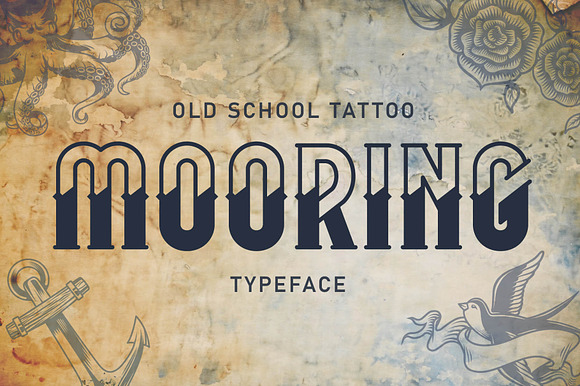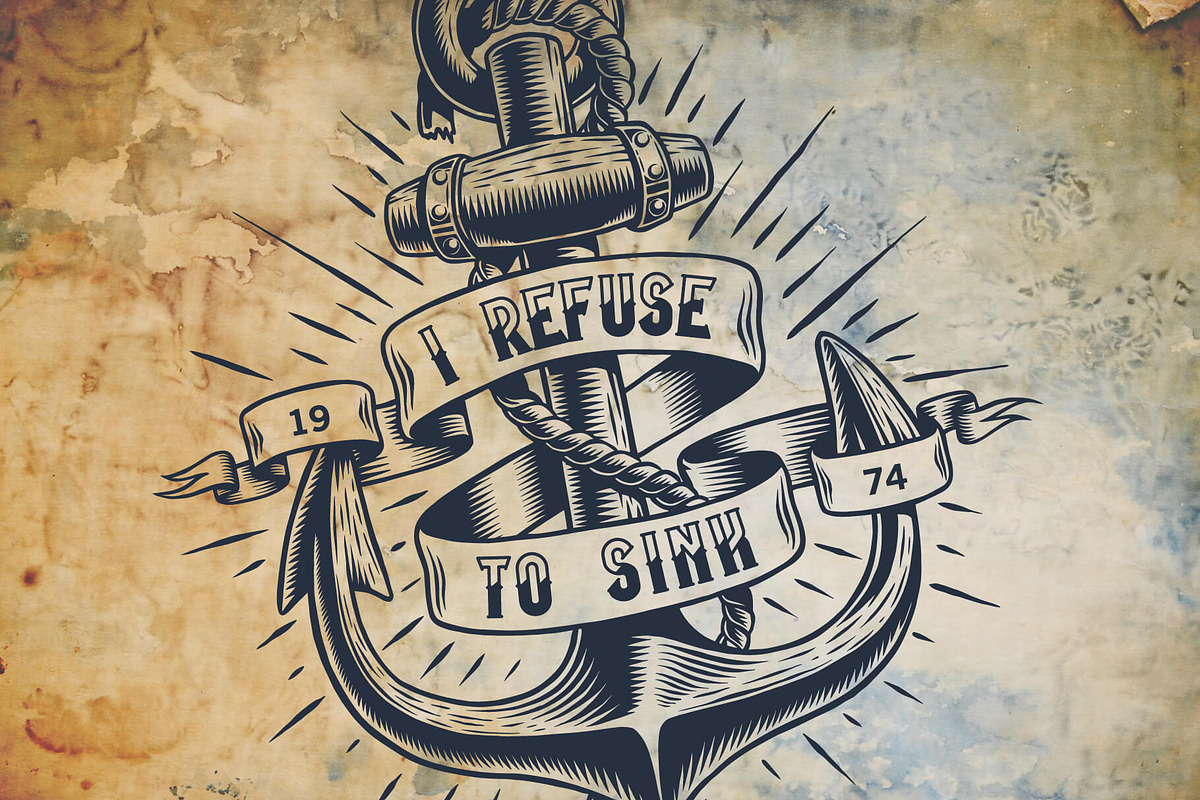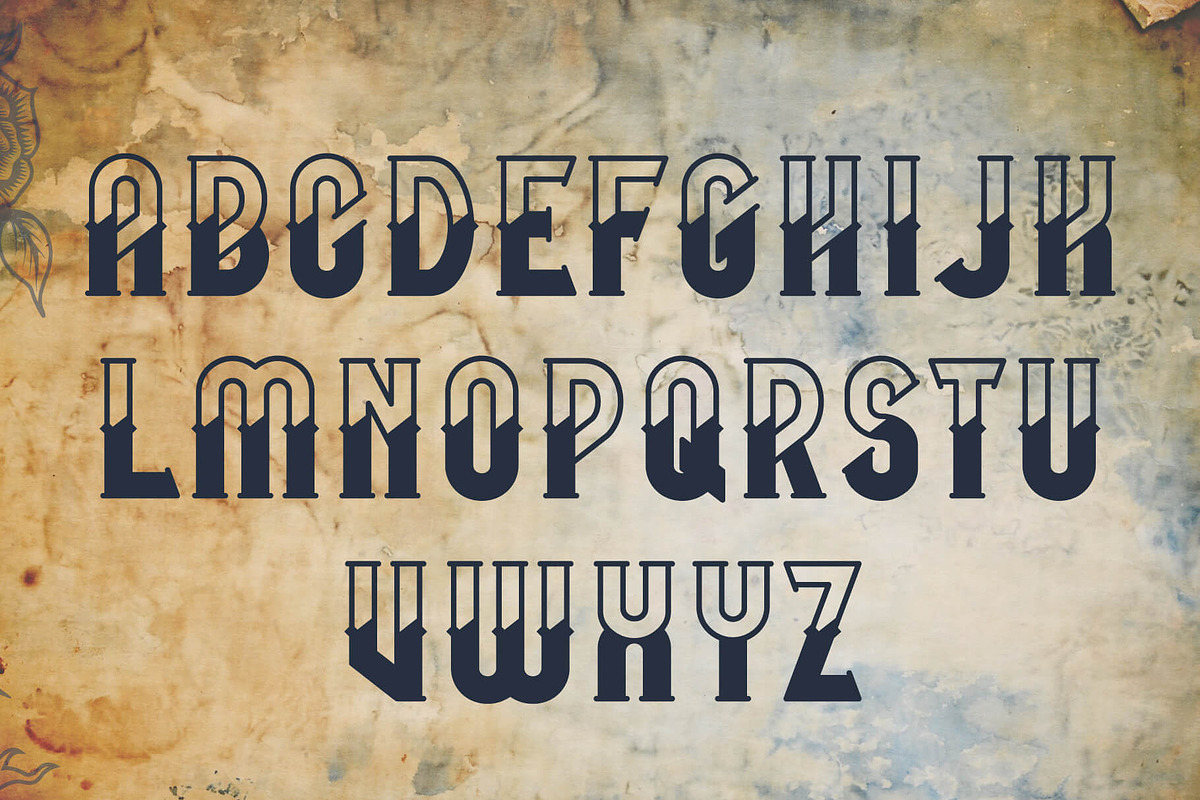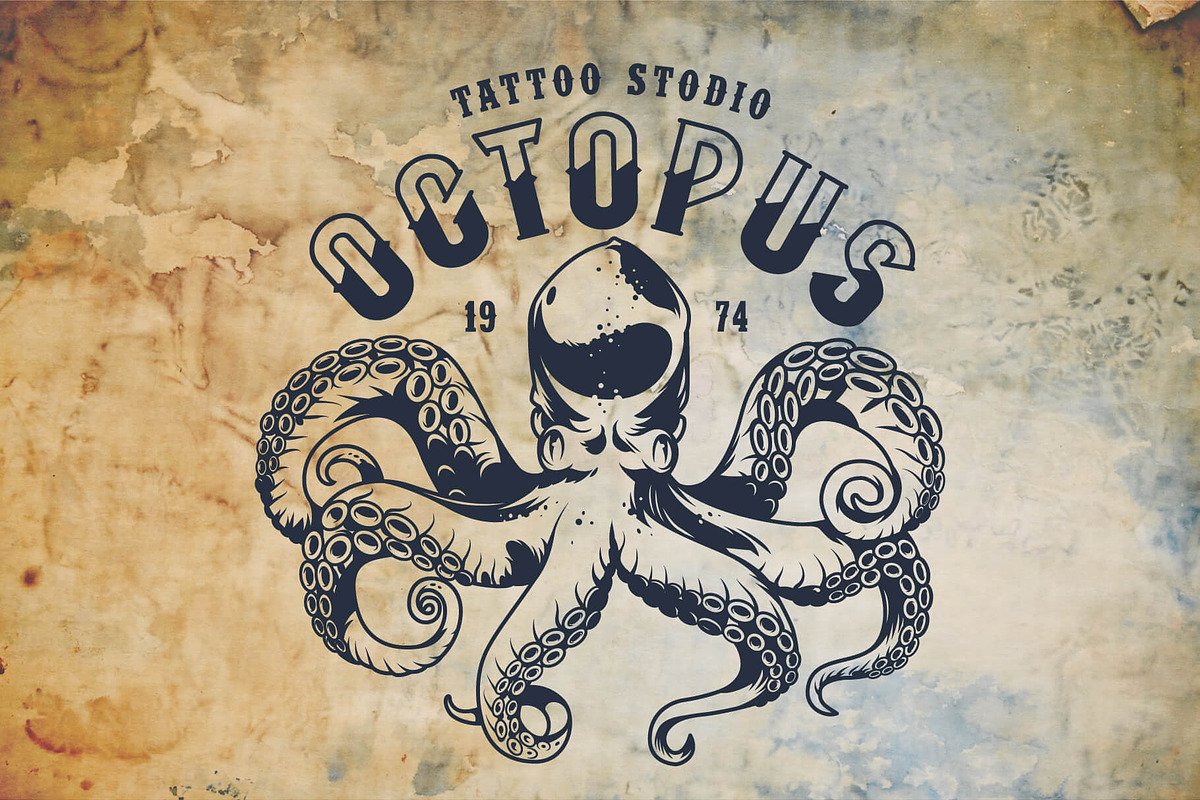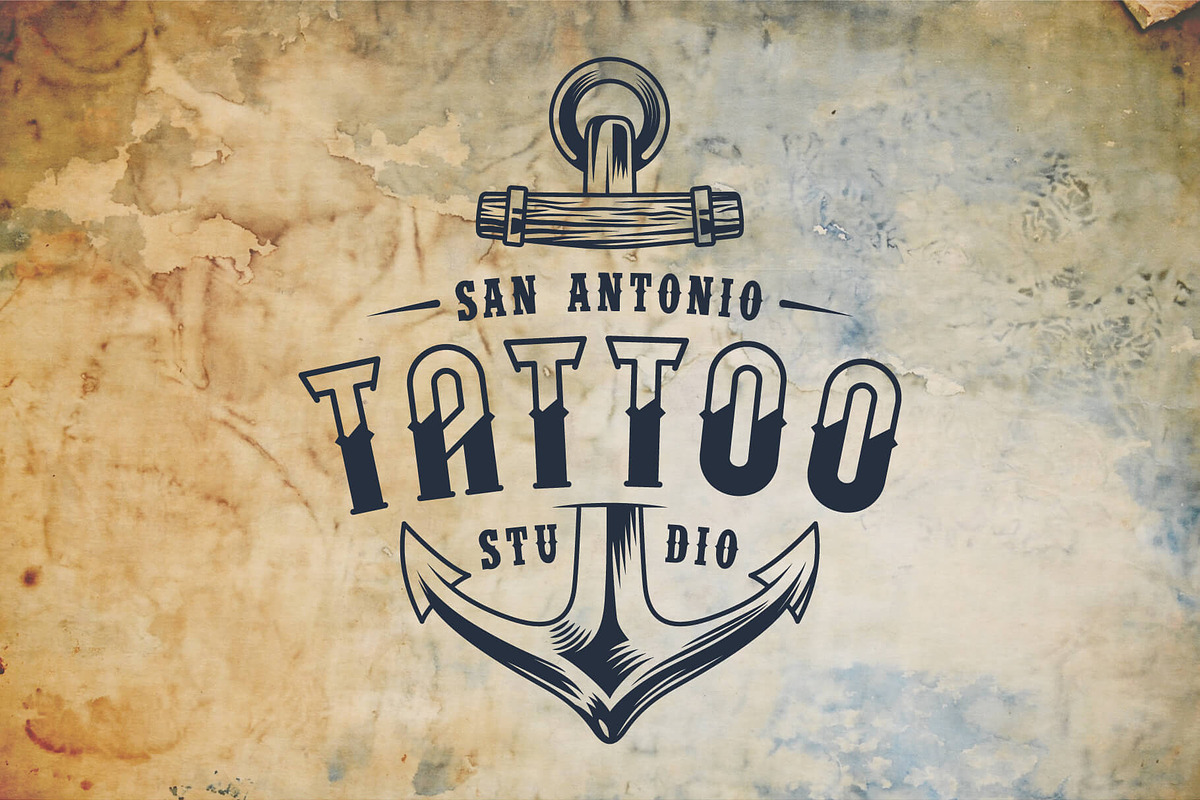
Old school tattoo Mooring font
The authentic tattoo Mooring typeface is inspired by classic tattoo motives. The font will be perfect for any nautical, sea and marine themed patches, labels, logos, badges, emblems, headlines, packaging, posters, magazines, product designs and much more. Also using this typeface, you can create tattoo studio, shop, café, bar signboards, billboards and signs.
Full set of character A-Z.
5 classic tattoo vector elements: Octopus, anchor, rose, swallow and ribbon
Why Old school tattoo Mooring font is worth a look
Old school tattoo Mooring font by DGIM studio fits naturally into Branding, posters, packaging, typography.